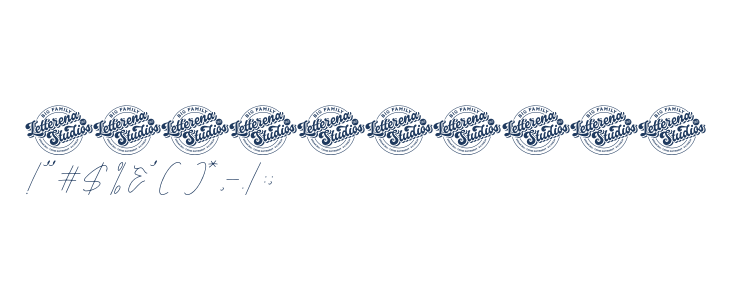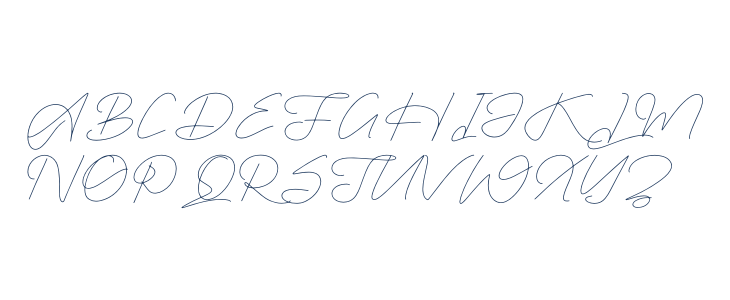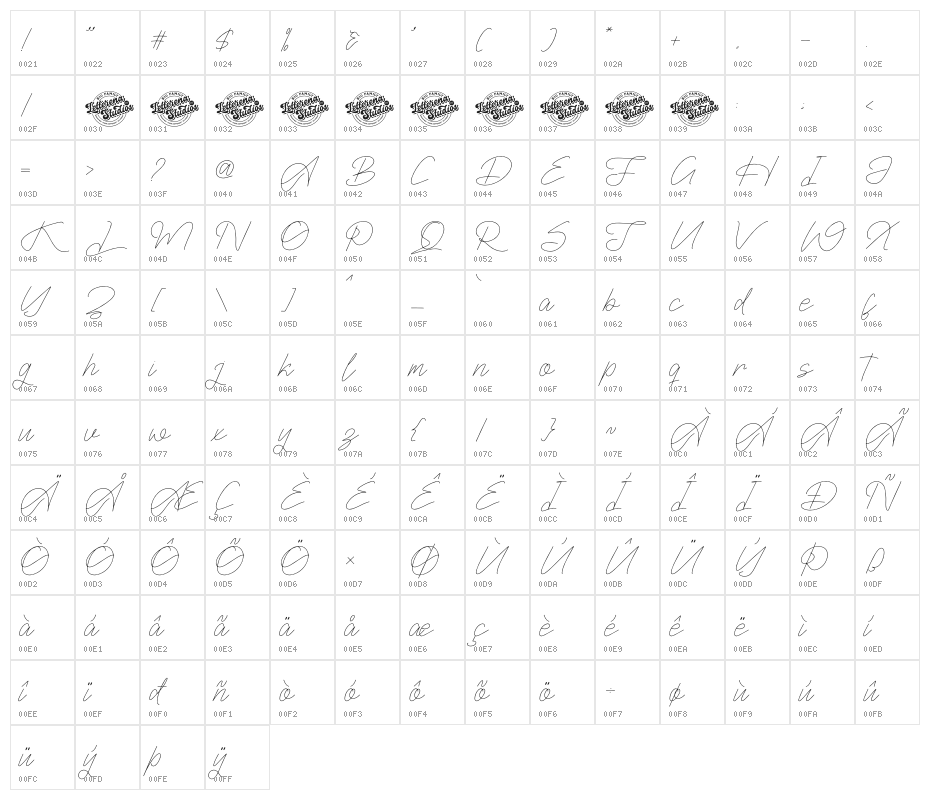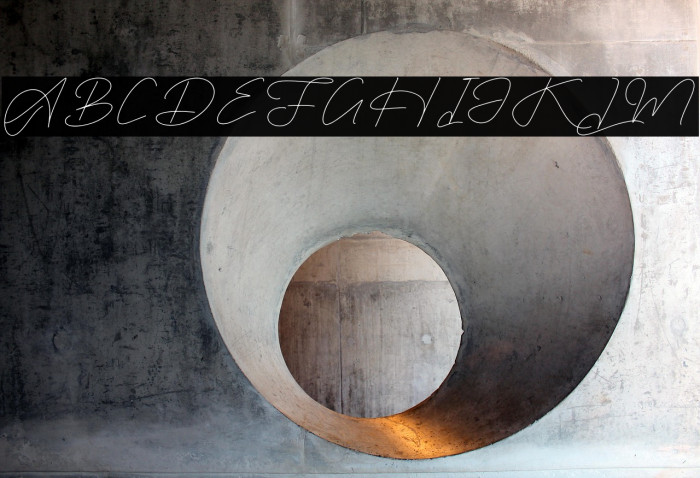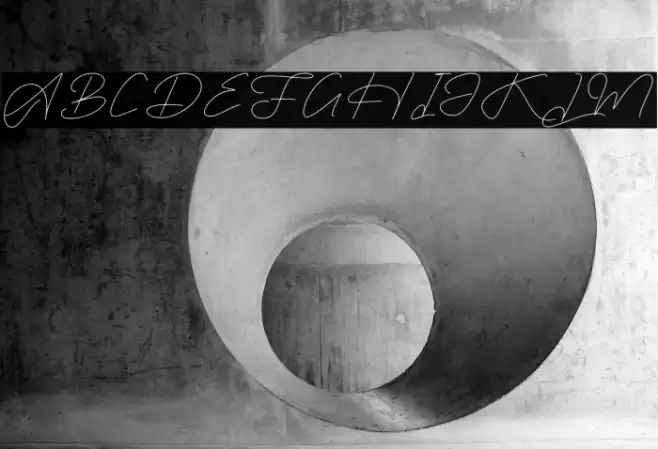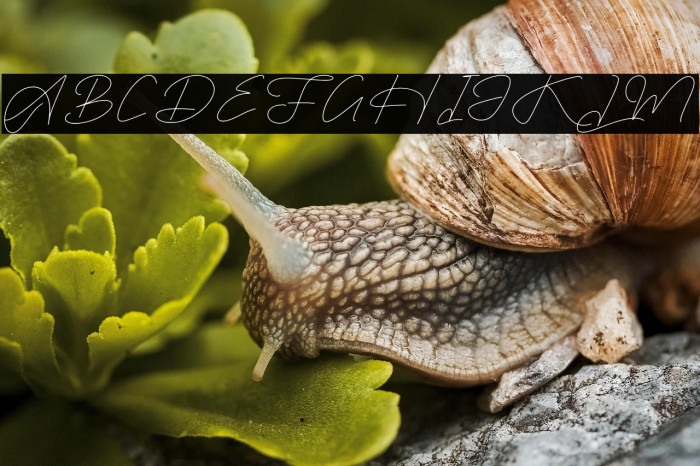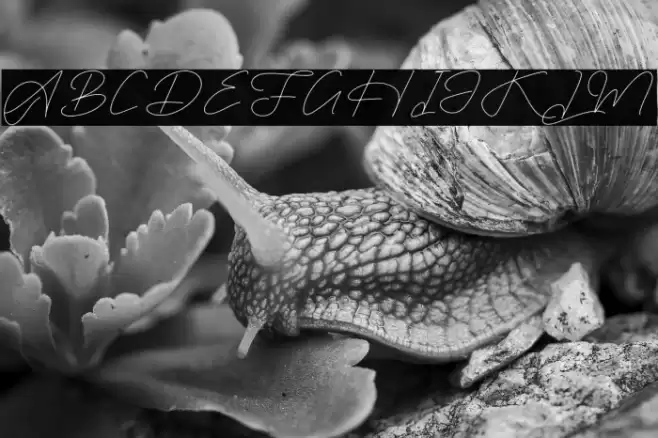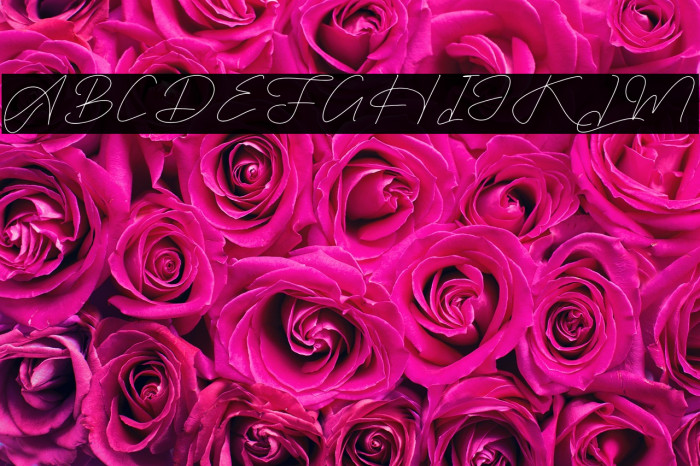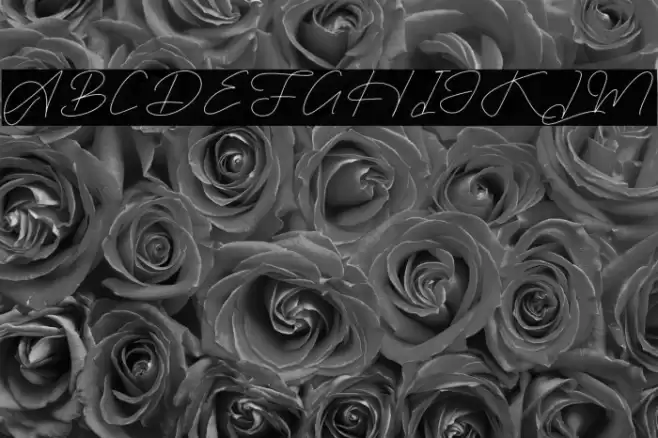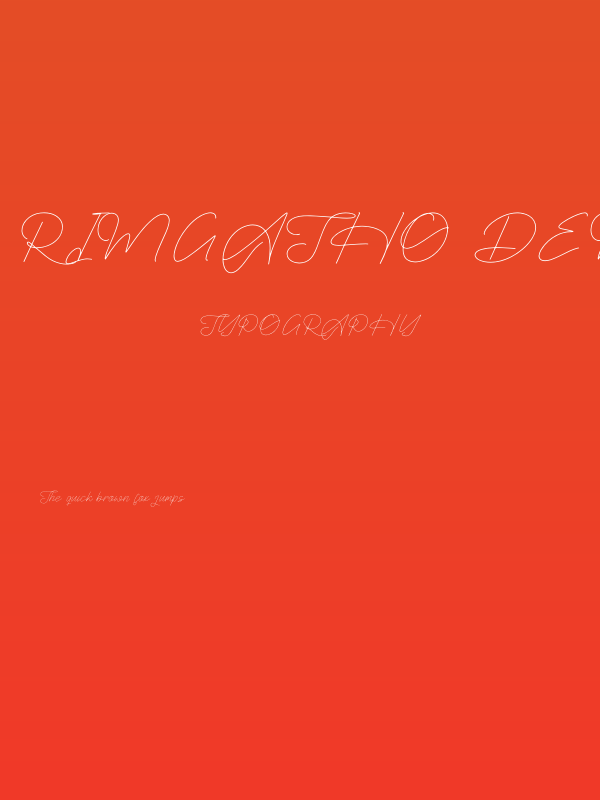
Rimgatho DEMO VERSION Font
Rimgatho DEMO VERSION Description
A delicate, cursive script font with a handwritten, elegant style, characterized by thin, flowing lines and a slightly whimsical appearance.
| Overall Style | Elegant, Delicate, Personal |
| Use Case | Invitations, stationery, branding, decorative text |